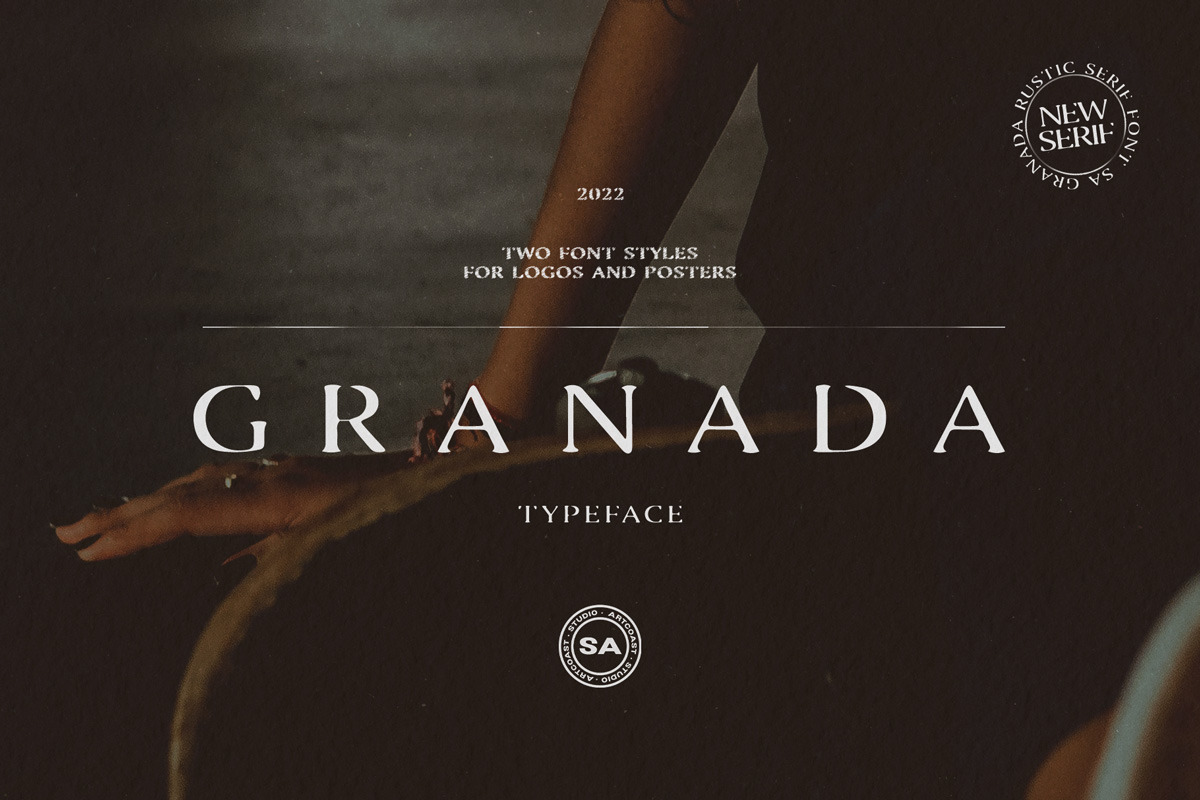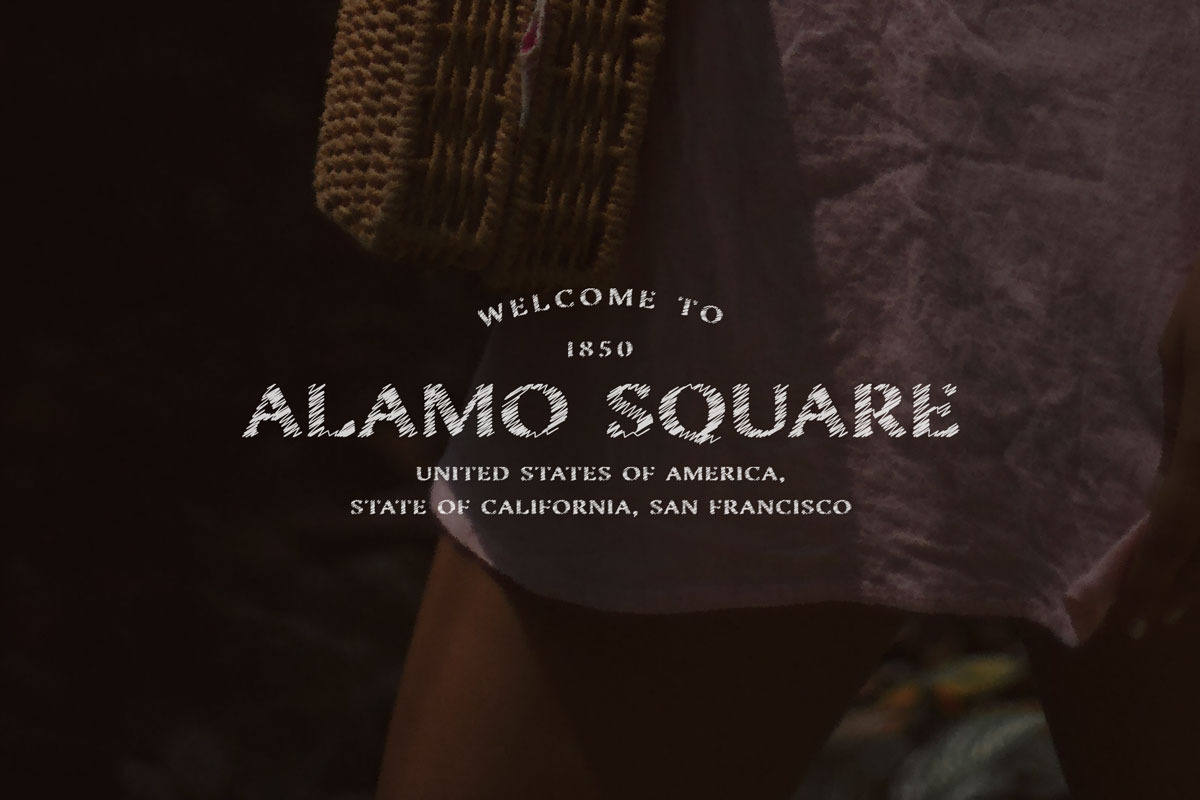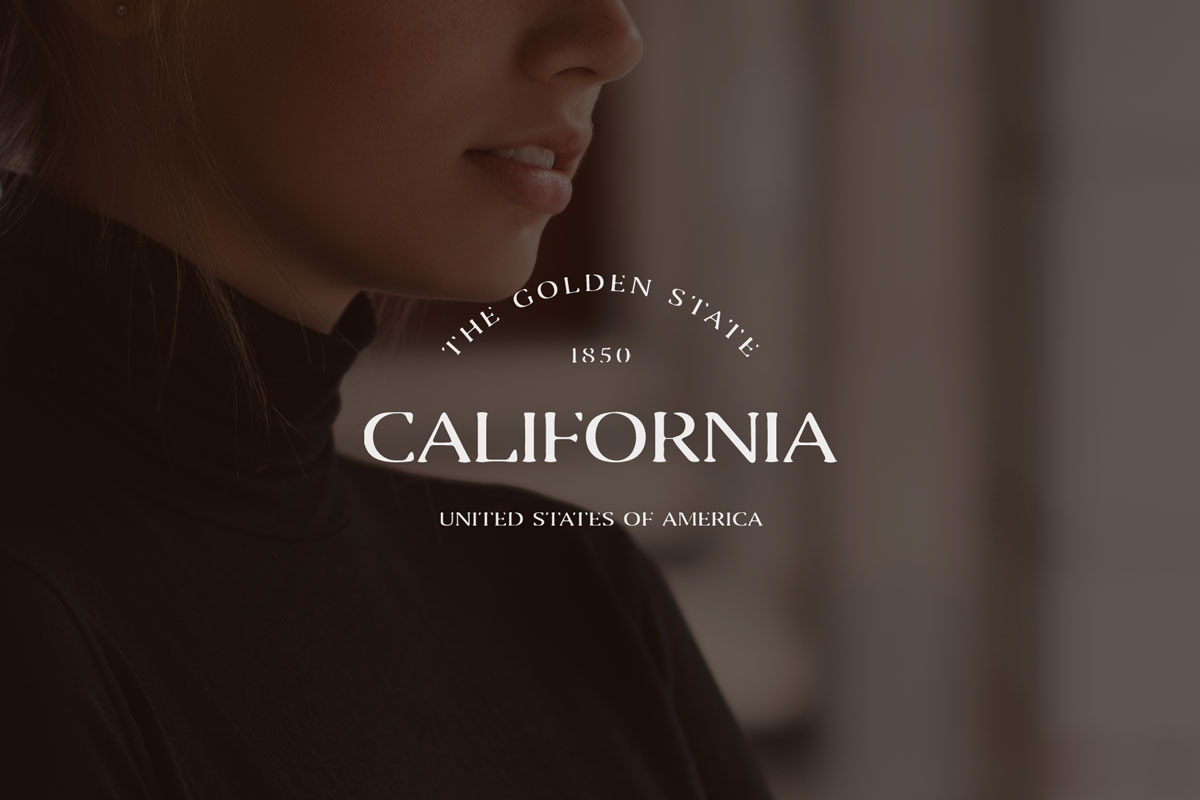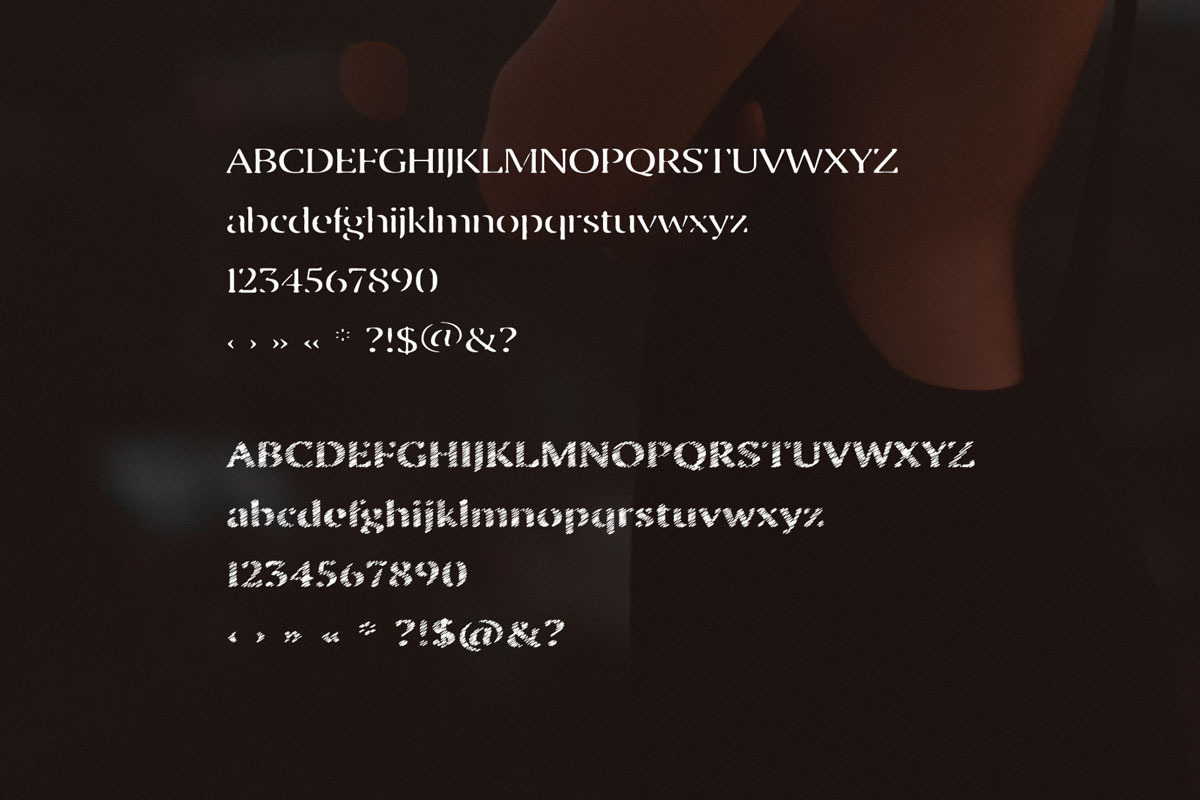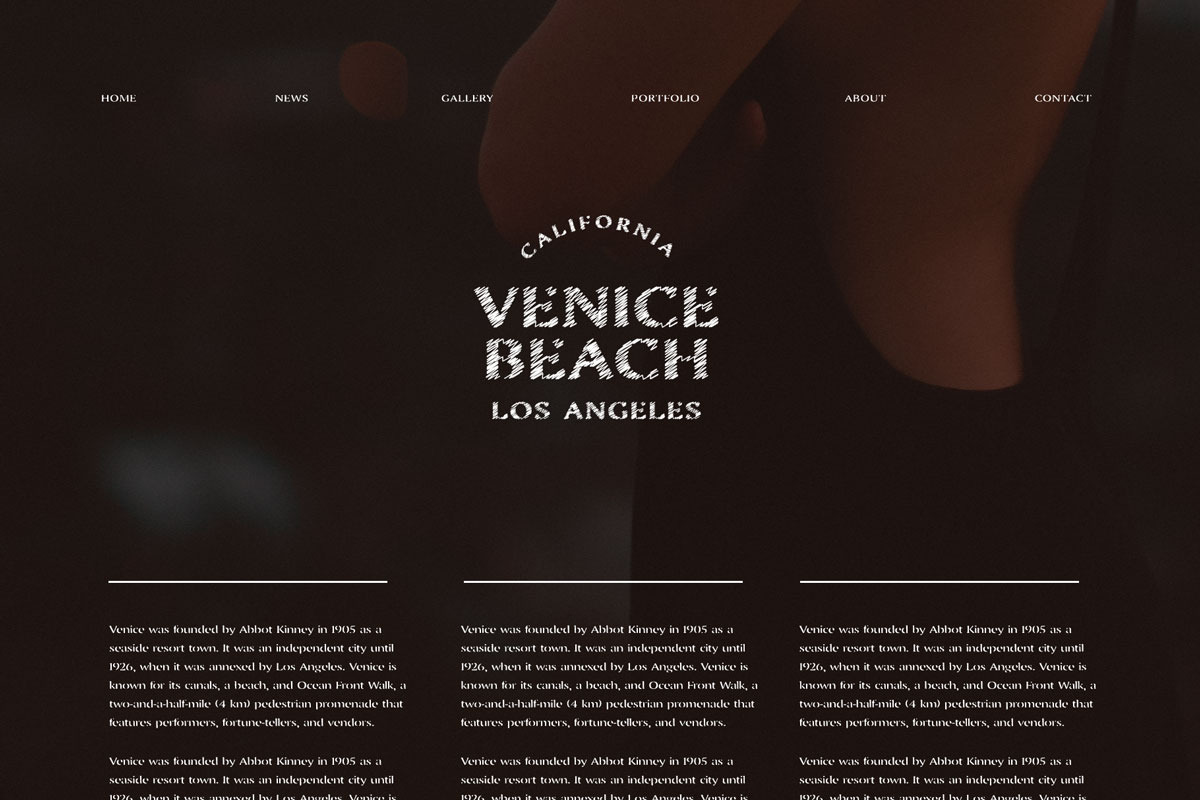
SA Granada Retro Serif Font
SA Granada is a truly versatile, rustic serif font designed with designers in mind. Perfect for everything from branding and logo designs to magazine titles and fashion photography, this hand-lettered sans serif font breathes life into any project. With plenty of character and an eye-catching style, SA Granada truly makes a statement when used!
This unique typeface features an expressive yet restrained typography style that is perfect for adding an elegant yet modern flair to all your design projects.
SA Granada is sure to be your go-to font for anything from stationery, wedding invitations, cards and more; or you can use it to create memorable graphics for social media posts or websites of all different shapes, sizes and designs.
- uppercase and lowercase letters
- numbers
- punctuation